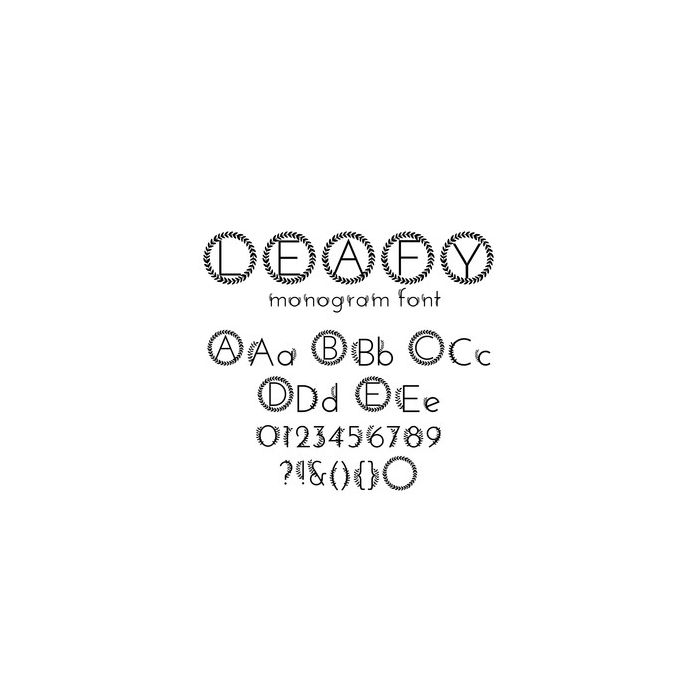
Leafy Wreath Monogram Font. Hand drawn font, featuring leafy wreaths and branches. Includes Leafy Wreath Monogram letters (these are in the glyphs panel) upper and lower case letters (3 versions of each letter in total!), numbers and glyphs as well as the wrath base - perfect for personal and family monograms. For more design ideas, coordinating designs & products and inspiration, please visit my blog http://www.sarahhurleyblog.com